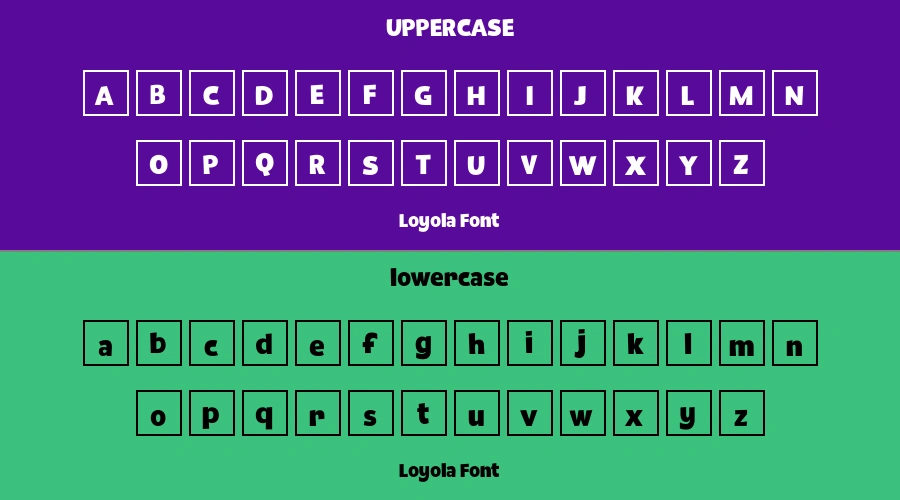
About Loyola Font
When typographic excellence matters most, Loyola Font delivers through its thoughtful blend of original character and clarity. Specially crafted for traditional magazines, it offers the functionality and technical precision required for sophisticated design work. Every detail serves a purpose.
The character set showcases thoughtful details like structural clarity alongside functional pi characters. This proves especially valuable in business cards, where readability directly influences results. Particular attention was paid to x-height proportion and subtle details during development.